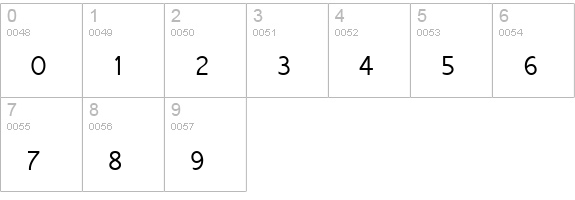
Vrinda Font Details
Vrinda font is a stunning typeface that captures the essence of elegance and sophistication. Its unique design features intricate curves and delicate strokes, making it perfect for adding a touch of refinement to any project. Whether you're designing a wedding invitation, creating a logo for a high-end brand, or simply looking to elevate your typography game, Vrinda font is the ideal choice. What makes Vrinda font even more remarkable is that it is available for free! Yes, you read that right. This exquisite font can be downloaded at FontsMarket.com without any cost, allowing you to enhance your designs without breaking the bank. With just a few clicks, you can access this exceptional font and add a touch of luxury to your projects. Vrinda font is a versatile typeface that works beautifully in both print and digital media. Its clean lines and balanced proportions ensure readability, making it suitable for a wide range of applications. Whether you're designing a magazine layout, creating a website, or crafting a professional presentation, Vrinda font will bring a touch of class to your work. The attention to detail in Vrinda font is truly remarkable. Each letter has been meticulously crafted to ensure seamless and harmonious letterforms. The result is a visually stunning typeface that exudes elegance and sophistication. From uppercase to lowercase, every character in Vrinda font is a work of art. With its free availability at FontsMarket.com, Vrinda font is a must-have for any designer or creative professional. Don't miss out on the opportunity to enhance your designs with this exquisite typeface. Download Vrinda font today and elevate your projects to new heights of beauty and style.